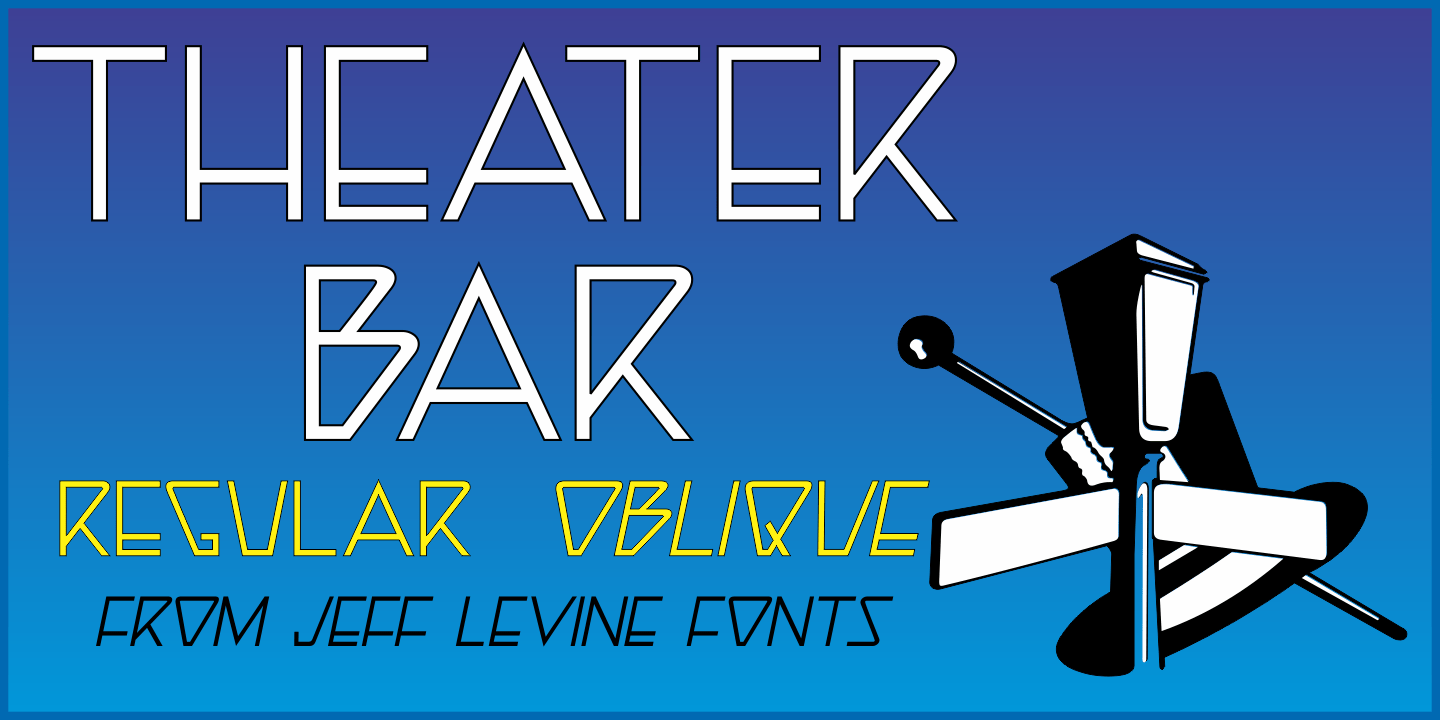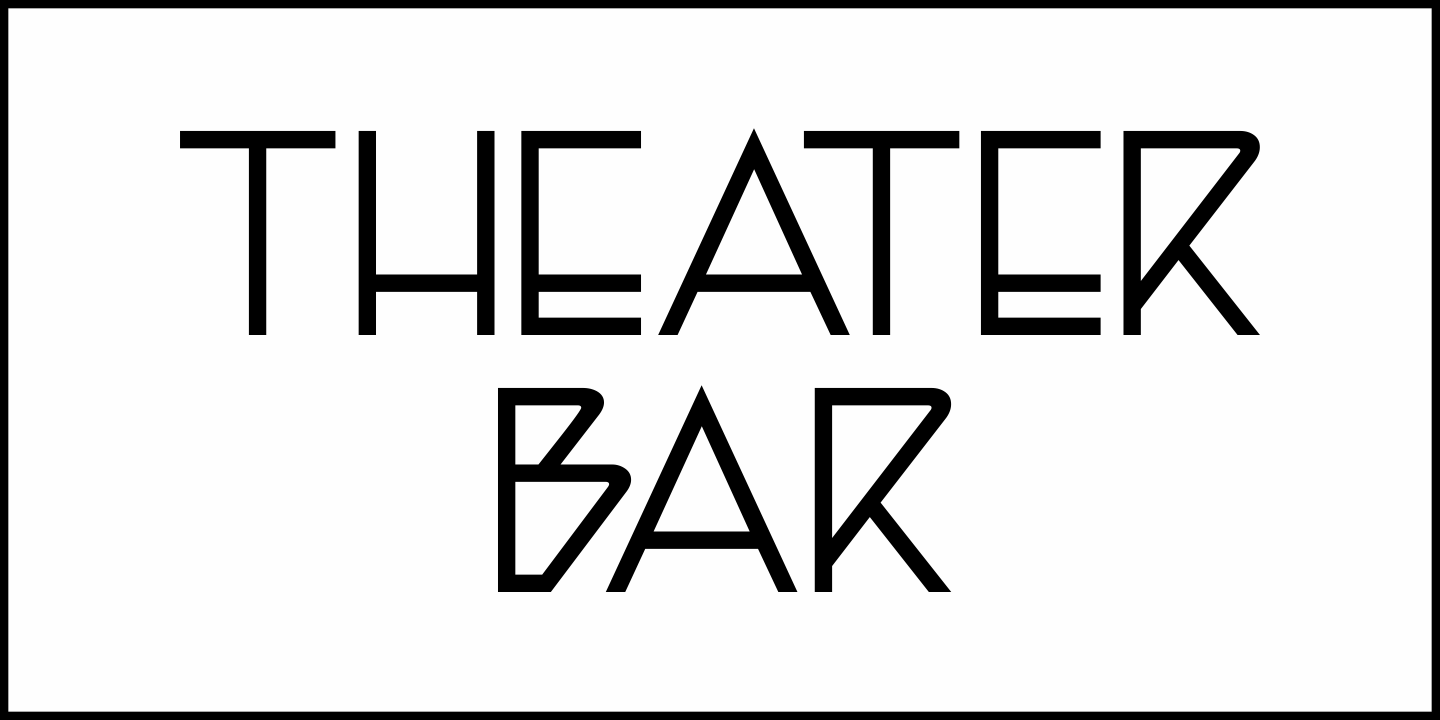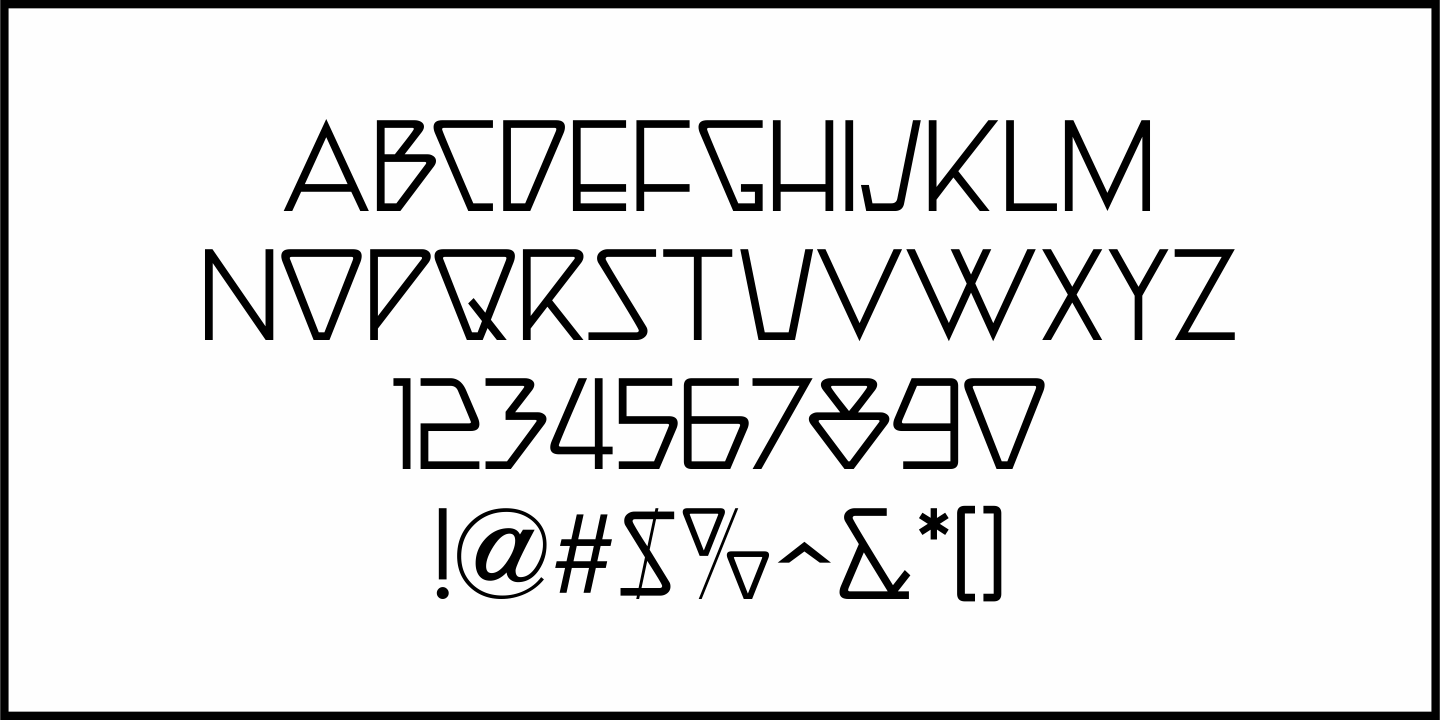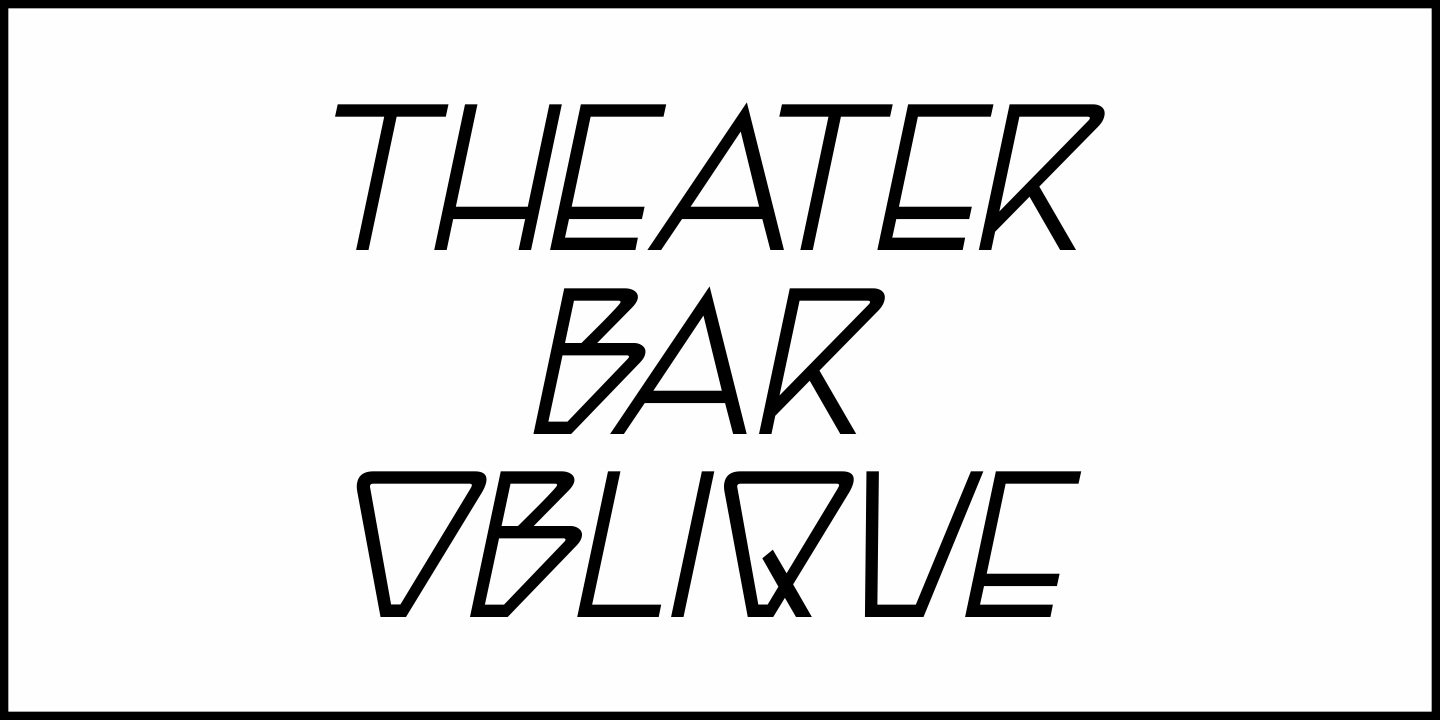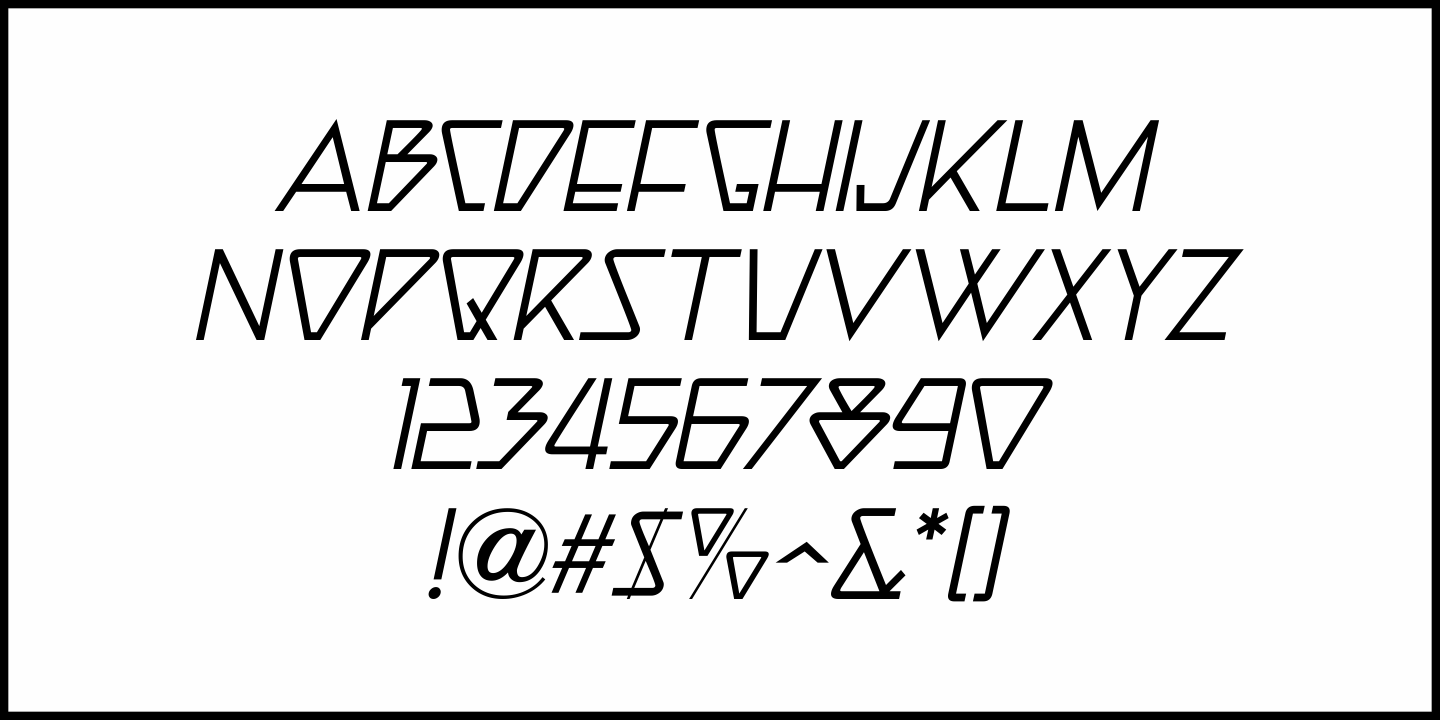
Theater Bar
The name and design inspiration for Theater Bar JNL comes from an image of an old bar with an overhead neon sign in very stylized sans serif lettering (most likely from the 1940s) and is available in both regular and oblique versions.